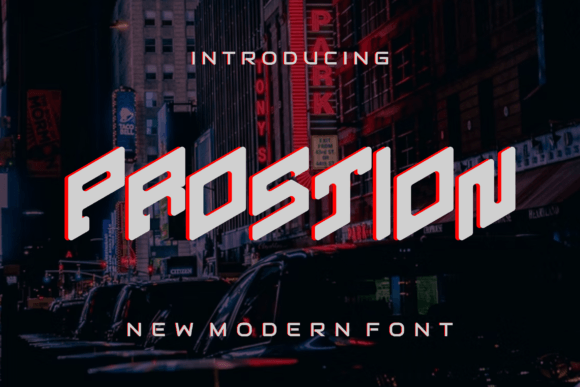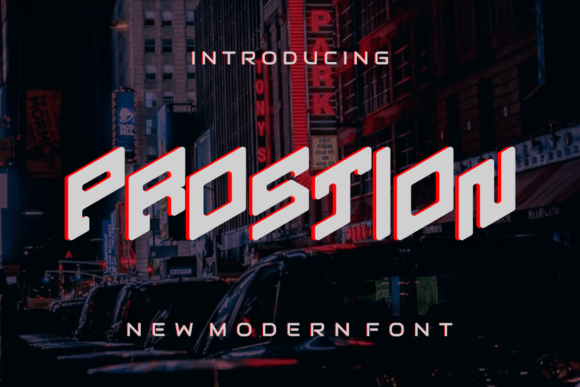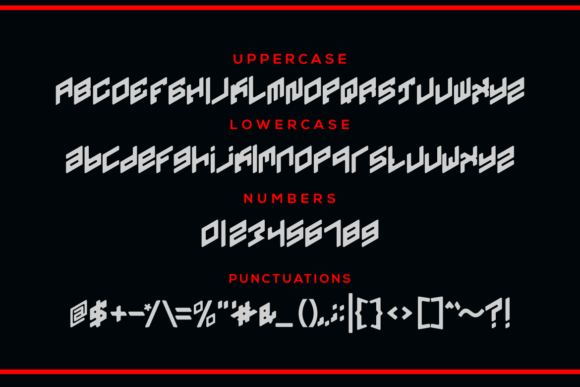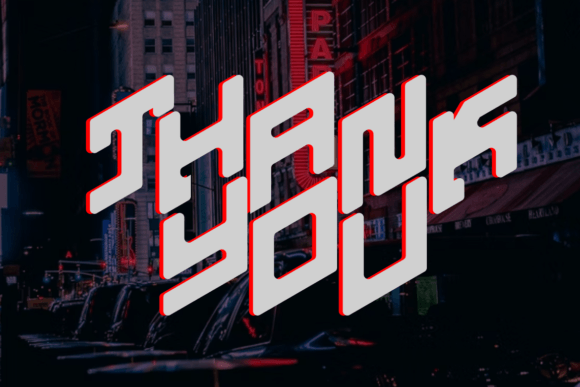
Prostion: A Modern and Elegant Slab Serif Font
Prostion is a modern slab serif font that combines beautiful, classy, elegant, and modern design elements. This versatile typeface is perfect for various projects, from signatures and stationery to branding and packaging design.
Key Features of Prostion
- Modern Design: Offers contemporary appeal with refined elements.
- Elegant Style: Brings sophistication to designs.
- Classy Character: Features polished and refined letterforms.
- Versatile Application: Adapts well to numerous design contexts.
Best Uses for Prostion
Thanks to its versatile characteristics, Prostion works especially well for:
- Elegant signatures
- Professional stationery
- Distinctive logos
- Wedding materials
- Typography quotes
- Magazine and book covers
- Website headers
When using Prostion in your designs, keep these tips in mind:
- Try it for headlines or display text to showcase its modern elegance.
- Use different sizes to highlight its classy features.
- Pair with simpler fonts for body text to create balance[3].
- Let its versatility enhance both traditional and contemporary projects.
To sum up, Prostion is an excellent choice for designers seeking a modern and elegant slab serif font. Its versatility makes it perfect for a wide range of projects. Whether you’re creating wedding materials, designing logos, or developing branding packages, Prostion offers the perfect blend of contemporary style and timeless sophistication.
Furthermore, Prostion’s distinctive design allows it to shine in contexts where both modernity and elegance are key. For instance, from stationery to website headers, this font can elevate your projects with its refined style. Also, its modern yet classy appearance works particularly well in designs that aim to make a sophisticated impact.
In conclusion, Prostion truly captures the essence of modern elegance in slab serif typography. Its versatility across different applications shows how well it can serve various creative needs. Therefore, for those wanting to add a touch of contemporary sophistication to their work, Prostion can enhance any design with its unique style. Ultimately, it’s perfect for designers aiming to make an elegant, modern impact across a wide range of creative projects.